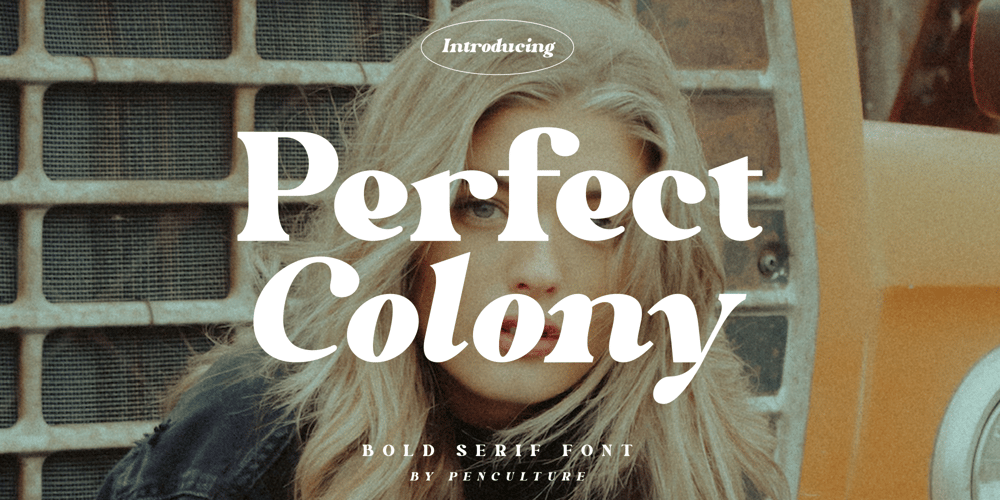
Perfect Colony Font Family was designed by Revo Farsiky and published by Pen Culture. Perfect Colony contains 2 styles and family package options. Proudly present “Perfect Colony // Bold Serif Font”Perfect colony is bold and classic serif with elegant curves. This font is perfect for branding, logo design, header text, poster and many other.What inside and what will you get: Uppercase and lowercase letter Number and punctuation Multilingual Support PUA Encoded I really hope you enjoy it – please do let me know what you think, comments & likes are always hugely welcomed and appreciated. More importantly, please don’t hesitate to drop me a message if you have any issues or queries.Thank you